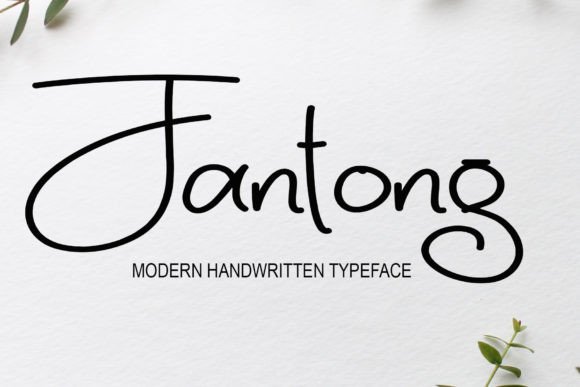
About Jantong
Jantong is an elegant and modern handwritten typeface with thin lines. This font is perfect for logos, wedding invitations, business cards, signatures, websites, and advertisements. Get creative with its unique playfulness, and use it to brighten up any crafting project!